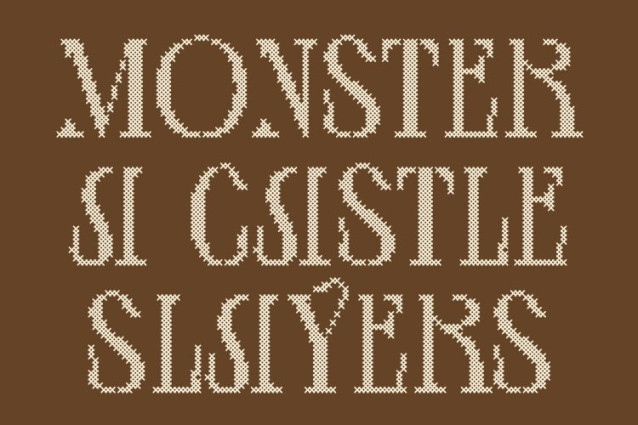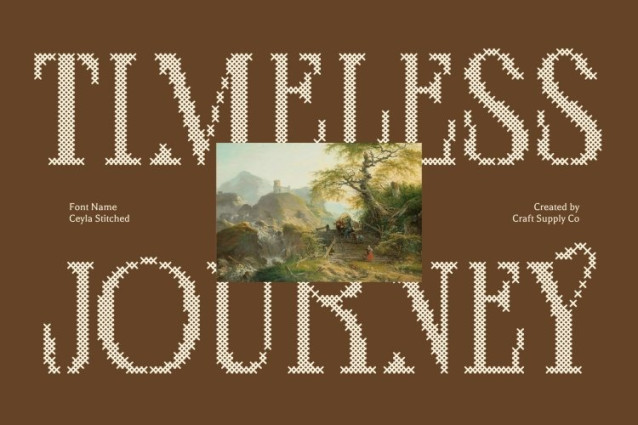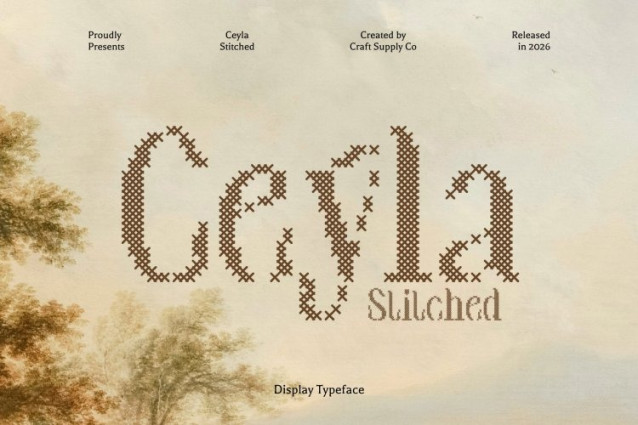
Ceyla Stitched Font – This is a modern font that beautifully blends serif refinement with expressive display characteristics, all enriched by an Art Nouveau flair. Its intricate detailing and graceful curves pay homage to the flowing aesthetics of the Art Nouveau movement, offering designers a sophisticated and artistically inspired typeface.
Elegant Curves with Handcrafted Stitch Detail
Enhanced with a stitched style designed to mimic thread sewn or embroidered on fabric, introduces a tactile and handcrafted dimension to its elegant structure. The cross-shaped stitch pattern creates a distinctive embossed and structured texture, adding depth and character to every letterform. This detail evokes a classic, nostalgic, relaxed, and warm impression balancing decorative elegance with personal charm.
Versatile, Stylish, and Refined
This is highly versatile, making it ideal for branding, editorial design, signage, invitations, packaging, fashion logos, and craft-themed projects. Its Art Nouveau influence delivers timeless beauty, while the stitched texture enhances its uniqueness with a soft, human touch. The result is a font that feels both luxurious and approachable.
Perfect for Sophisticated Design Projects
Whether you’re crafting a high-end brand identity, designing an elegant magazine layout, or creating refined invitations and promotional materials, elevates your work with artistry and warmth. Its seamless fusion of modern structure, decorative flow, and textured stitched detail ensures a captivating and memorable visual experience.